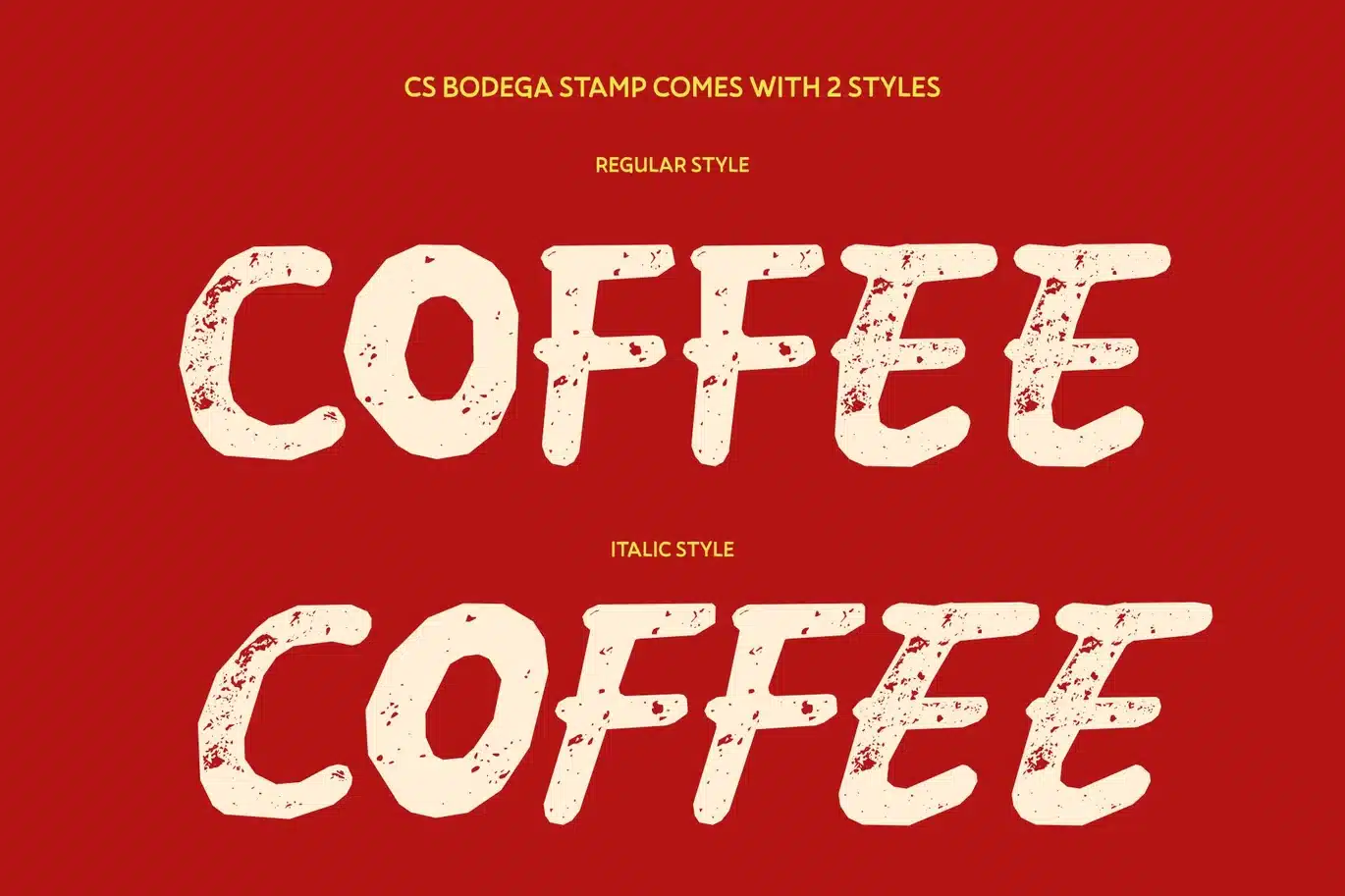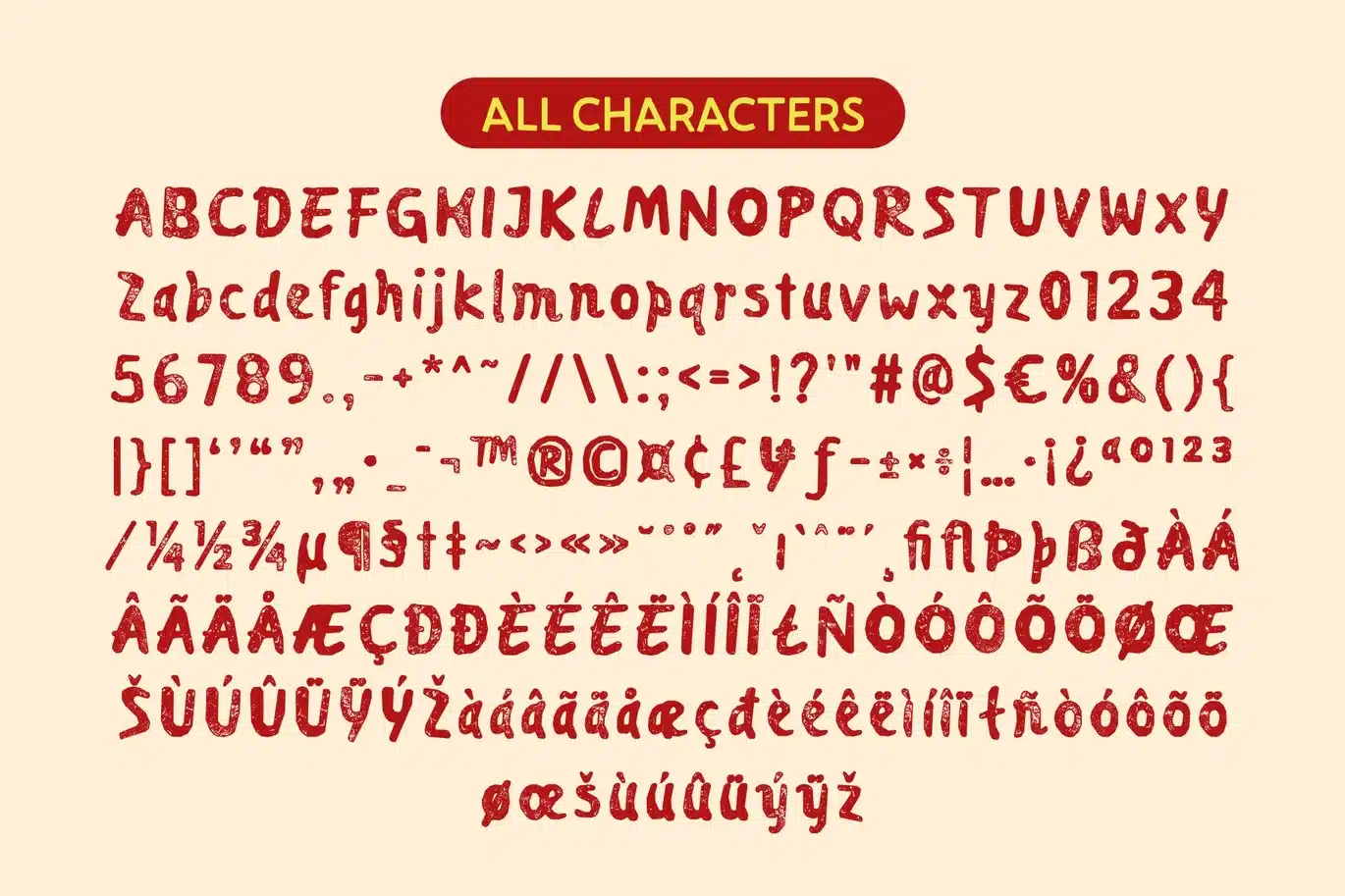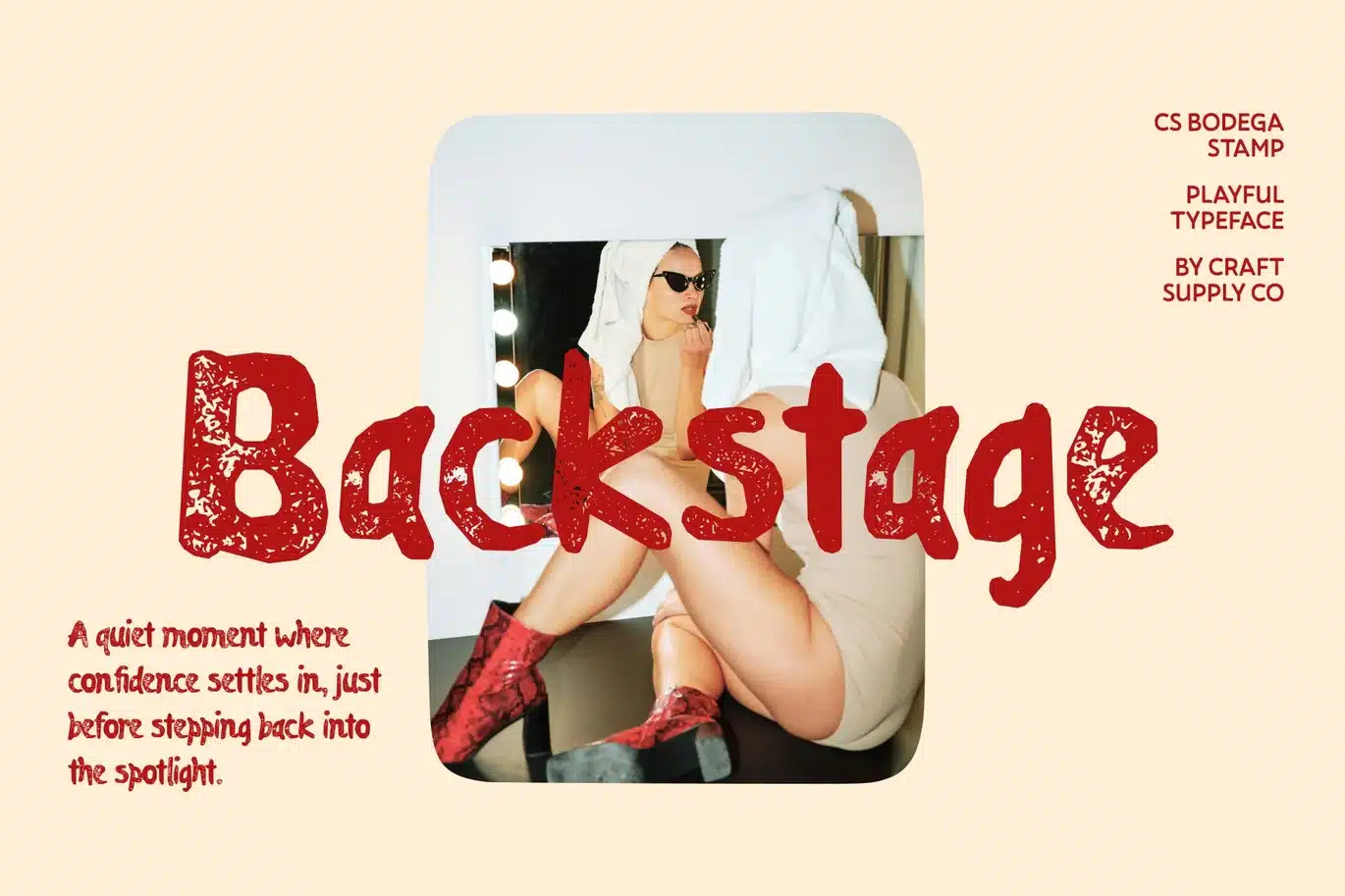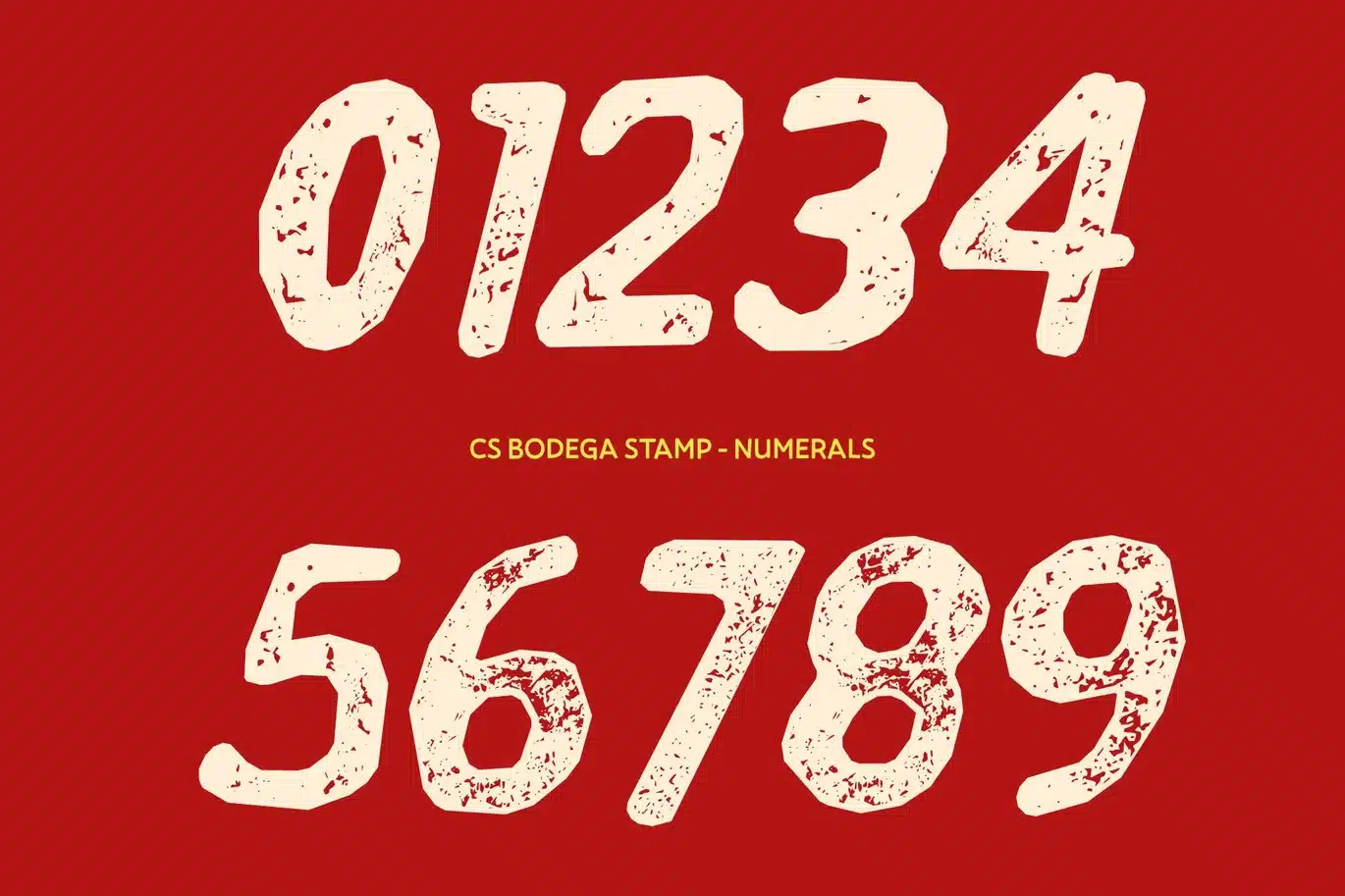
Bodega Stamp Font
CS Bodega Stamp – Playful Handwritten Display Font with a Stamped Twist
Fun, Funky Handwriting with Handmade Texture
This keeps the cheerful, expressive handwritten style of the original font while introducing a subtle stamped texture that adds depth and character. The lively letterforms now feature gentle ink variations and softly irregular edges, creating a handcrafted feel that enhances its playful personality without losing clarity.
Energetic, Friendly, and Full of Charm
The natural flow and quirky rhythm of this font become even more engaging with the stamp effect. Slight imperfections give the font a warm, human touch, making it feel spontaneous, friendly, and full of joy. Its cute and funky vibe remains strong, now enriched with a tactile, artisanal quality.
Perfect for Fun Branding and Creative Projects
This is ideal for children’s designs, product packaging, greeting cards, playful logos, posters, and creative branding that needs to feel approachable and authentic. The stamped texture adds a cozy, handcrafted atmosphere that works beautifully in both print and digital applications.
Expressive, Playful, and Unforgettable
By blending energetic handwritten letterforms with a vintage-inspired stamped finish, brings ideas to life with personality and warmth. It’s a perfect choice for designers looking to create visuals that feel fun, genuine, and bursting with creative expression.